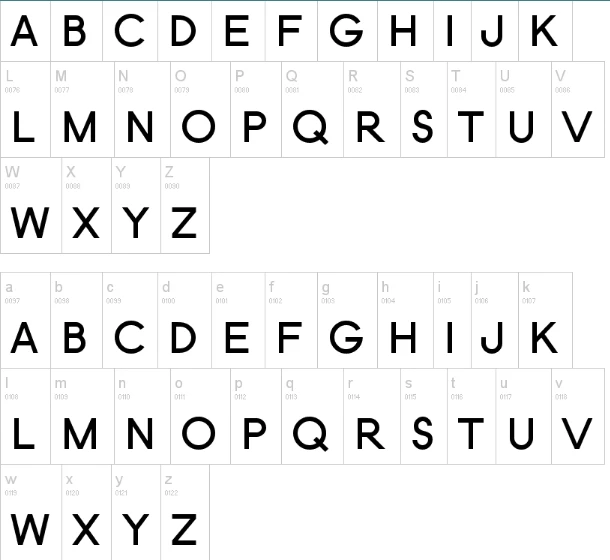
Novah Sans Serif Font-Download Free
Novah Sans Free Font is a classic sans serif that pairs perfectly with handwritten lettering! Use alone or in combination for a powerful combination. Novah will also work well in a variety of creative tasks. Azetype created and shared the Font. It significantly stretches the bounds of the x-height, enabling unrivaled freedom, with precise features and a distinctive arrangement. Novah is highly suited for a wide range of typographic needs due to its unique structure combined with regular width proportions, moderate contrast, and vertical tension.
The addition of humanistic terminals and typographic letter alternates, such as the binocular “g” or the geometric “a,” combines the best features of both geometric and grotesque typeface classics. Glyphs such as Latin Uppercase, Latin Lowercase, Latin Other, Cyrillic Uppercase, Cyrillic Lowercase, Greek Lowercase, Number, Punctuation, Symbol, Opentype Features, Mark, and others are included in the typeface. Stylistic Alternates, Common Ligatures, Discretionary Ligatures, Contextual Alternates, Localised Forms, Tabular, Figures, Diagonal Fractions, Denominator, Numerator, Subscript, Superscripts, Case Sensitive Forms, and Ordinals are just a few of the outstanding OpenType features of the font.
The base of the Font is Logos, and branding is a breeze! This unique typeface is suitable for logos, packaging, greeting cards, presentations, headlines, letters, posters, branding, quotes, titles, magazines, headings, web layouts, mobile applications, advertising, invitations, package design, books, and many others.
StyleSans-Serif.
DesignerAzetype